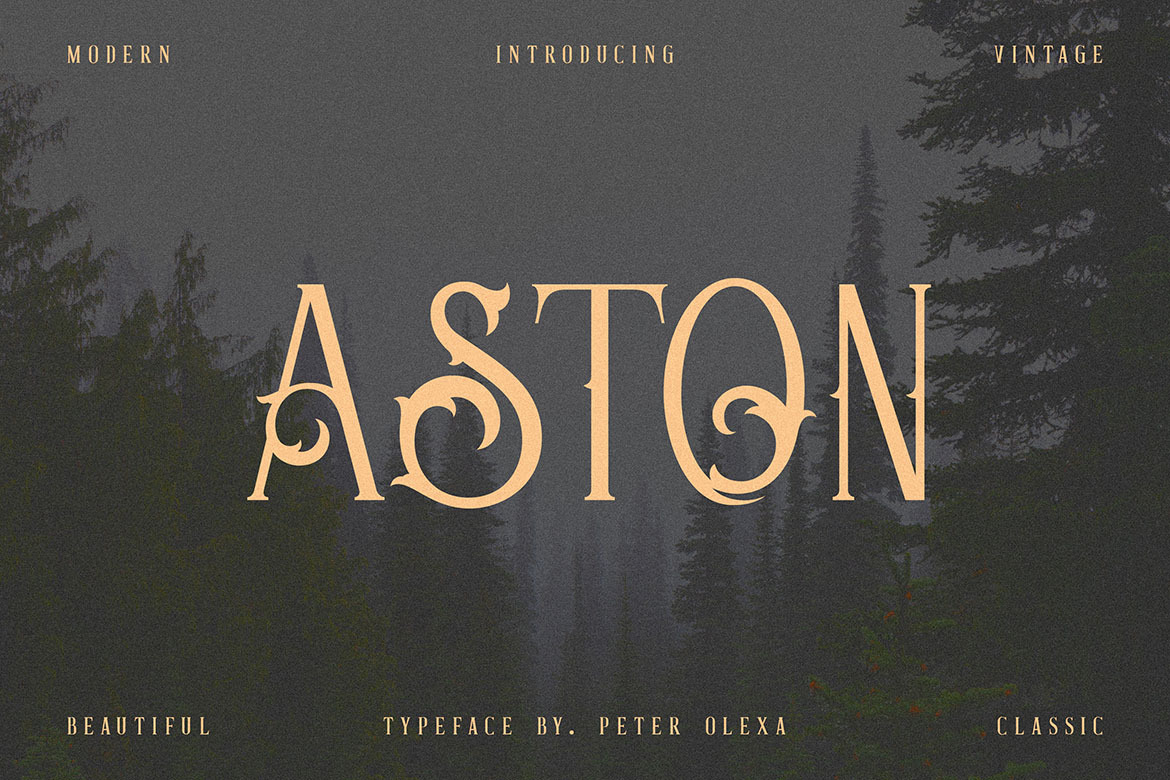
Aston - Vintage Serif Font
Unique vintage & ornamental style custom serif font. Comes with some alternate characters great for your new logo or branding project.
- Great for retro or vintage style branding projects